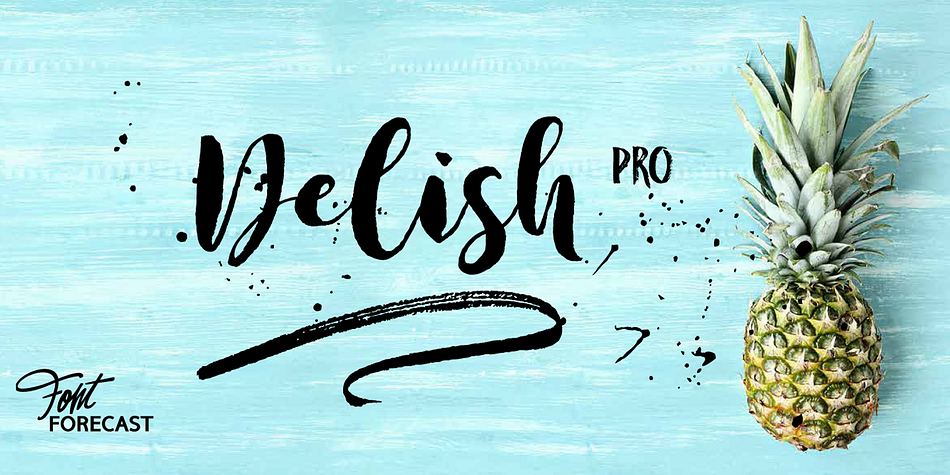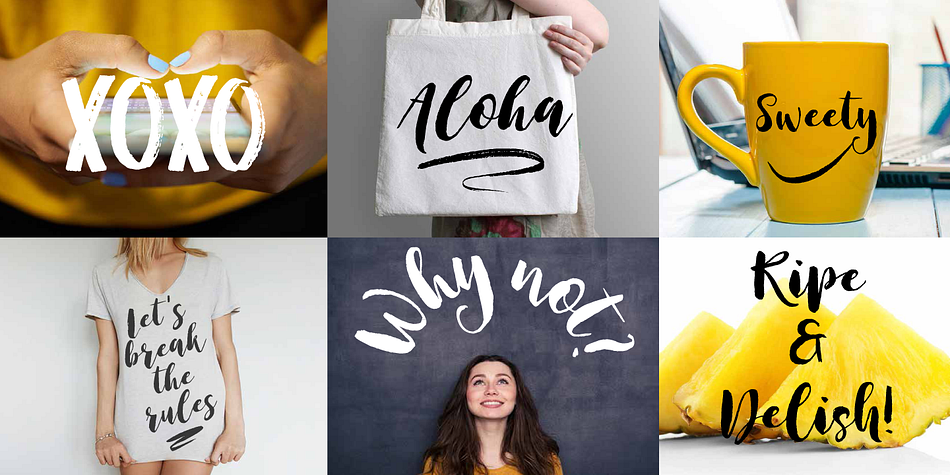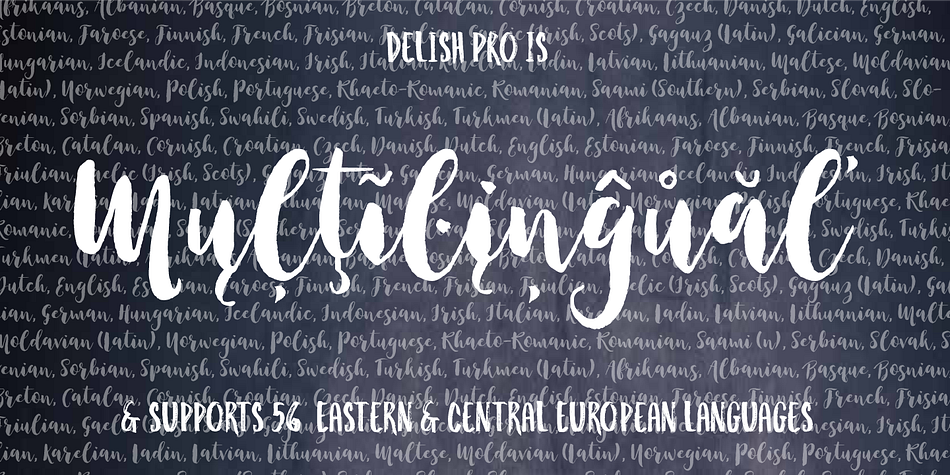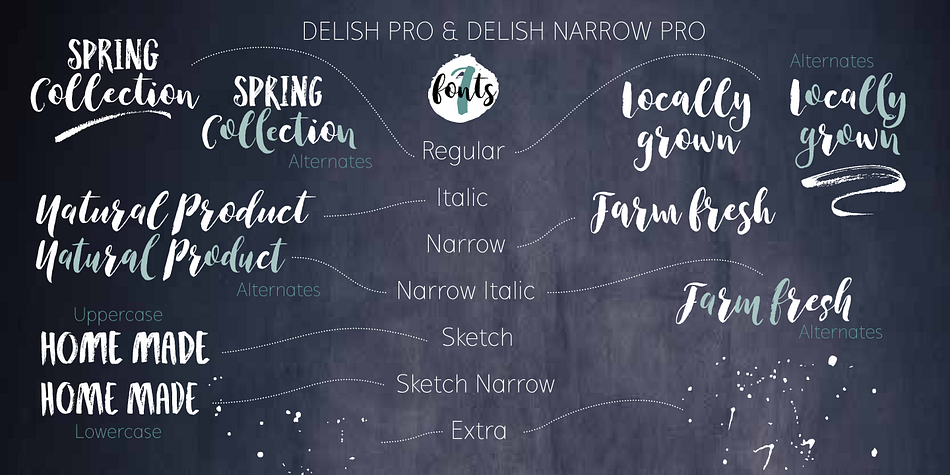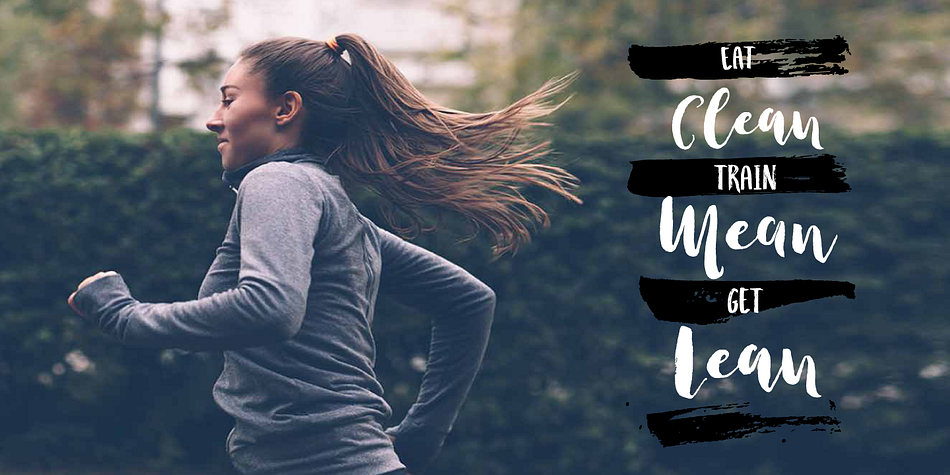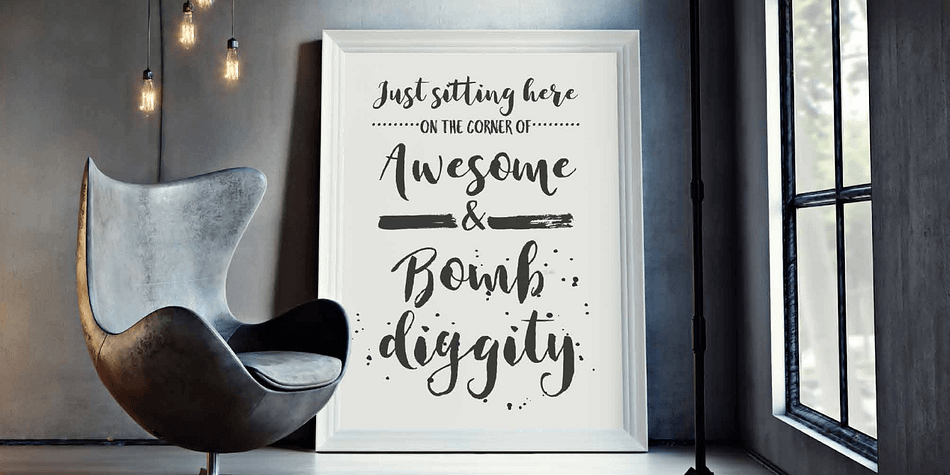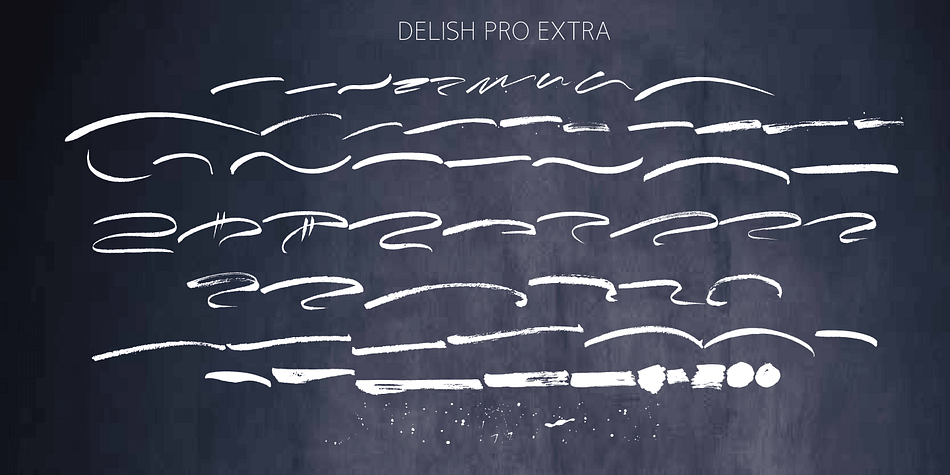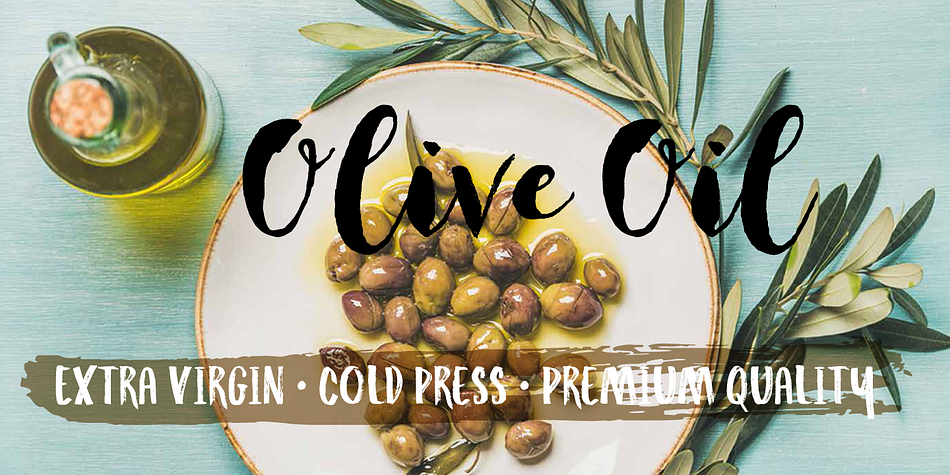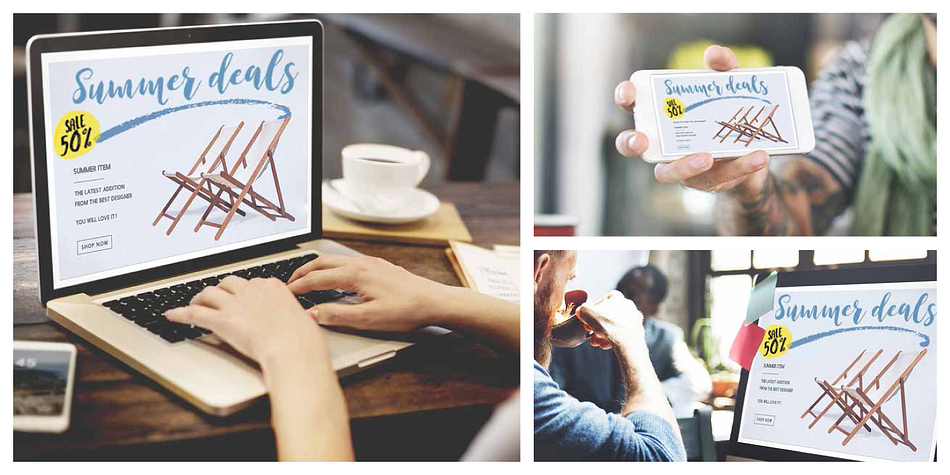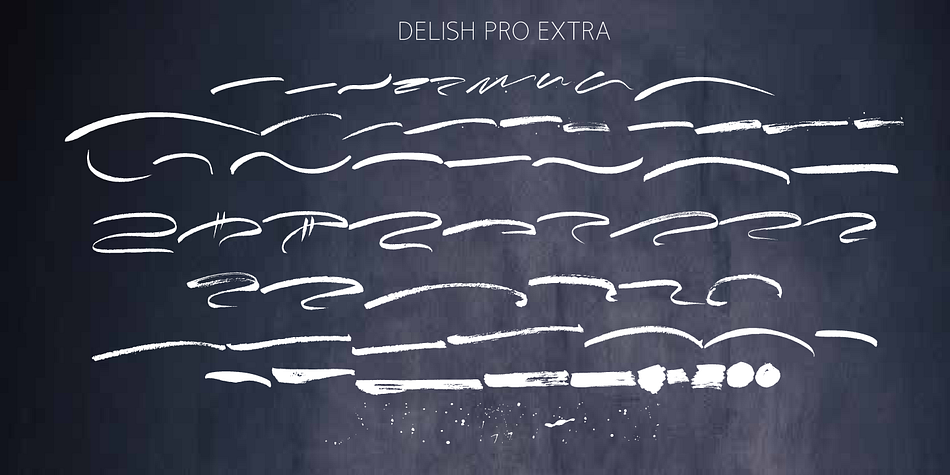
Designed by Hanneke Classen, Delish Pro is a multiple classification font family. This typeface has seven styles and was published by Fontforecast.
Delish Pro is a bouncy brush font family. Hand lettered with lots of character. This delicious family contains 7 fonts in various styles, especially designed to make sure there’s always one that fits your design needs.
There’s an Upright and an Italic version, and both come in a condensed edition, perfect if you’re looking for a more efficient use of space. Alternate characters and double letter ligatures give you the ability to fine-tune your design as you please.
To compliment the range Delish Pro Sketch and Delish Narrow Pro Sketch were added. A sturdy Caps font with a dry marker effect. To make this family even more flexible an extra treat of 64 swashes and ink splatters are included. Enjoy!